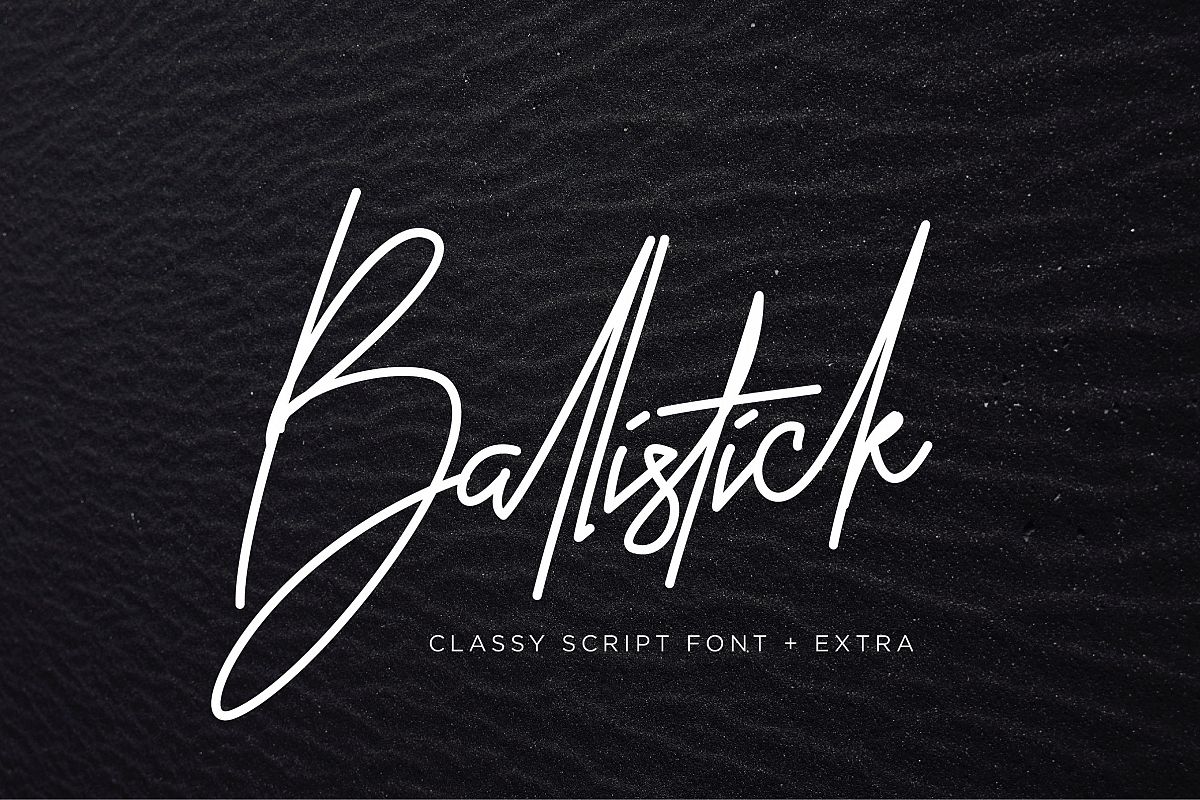
Ballistick - Classy Script Font with Extra Bonus
Introducing Ballistick - Contemporary Signature Script font
Beautiful & Classy typographic harmony for design projects,
including logos & branding, wedding designs, social media posts,
advertisements & product designs.
To keep maximum real hand lettered effect, there were created 59 ligatures!
following ligatures:
ab af al all ar as ass at att bb ce ck cl ct db dd dl ee ef el er et ff ft gh ht
id if ir ir is ist it lk nt ob of oh ot pl rl rr sb sh sk sl st tl ub uk ul ur ut utt
wb wh wk